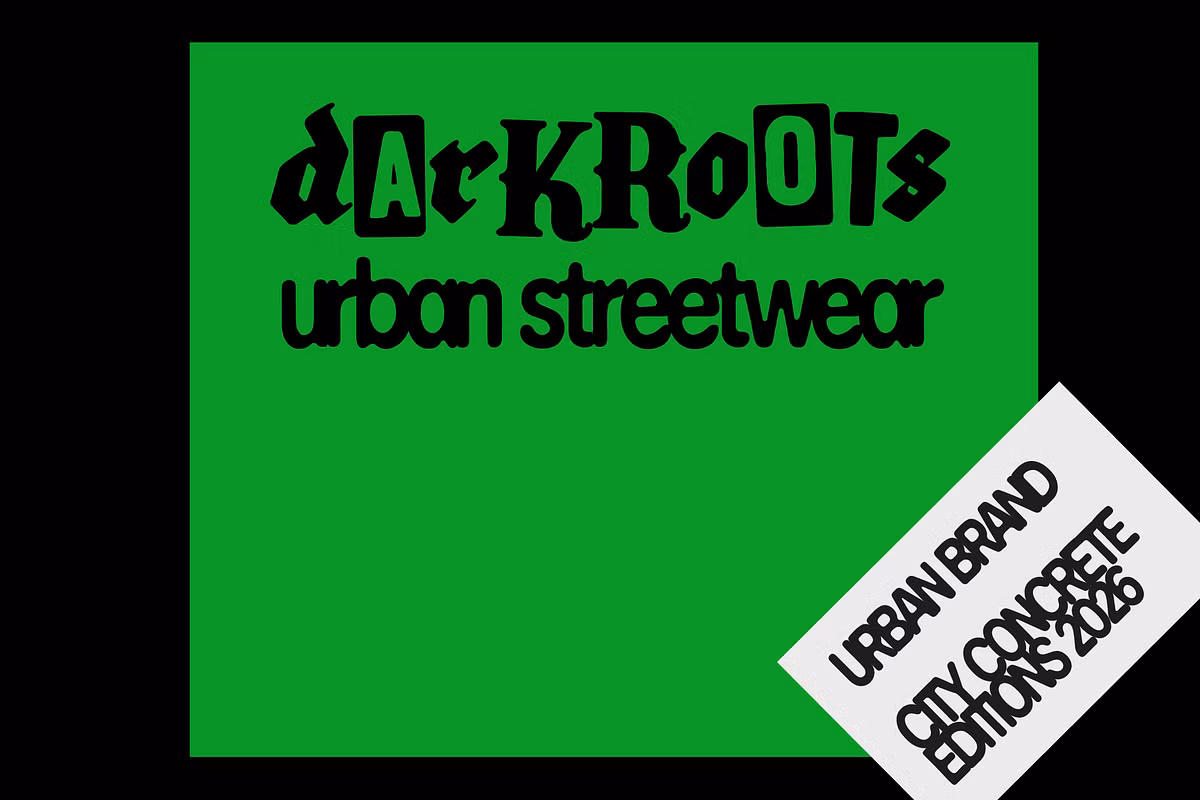
Authentic Streetwear – Font Bundle: Premium Typeface Collection for Urban Branding
Introduction to the Authentic Streetwear Font Bundle
The Streetwear Font Bundle is a top-notch set of fonts that can really boost your branding in the streetwear scene. It’s all about bold, eye-catching fonts that capture the edgy vibe of urban fashion. If you’re a designer working on visual branding, especially for skate brands, underground clothing labels, music merch, or urban ads, this bundle is for you. With these fonts, you can create a solid brand identity and make a big impact visually, without having to sift through tons of different font styles.
Design Style: A Fusion of Urban Aesthetics
The design style of the Authentic Streetwear Font Bundle is characterized by a unique blend of typography that captures the essence of street culture. Each typeface in the collection has been carefully selected from Edignwn Type’s display library, offering a diverse range of styles that include:
- Blackletter Aggression: Fonts like Blightmark Blackletter and Hintdake Blackletter bring a bold, historical vibe that adds an aggressive edge to your designs.
- Ransom-Style Chaos: The Desfort Ransom typeface introduces an element of playful disorder, perfect for eye-catching posters or album covers.
- Bold Serifs and Contemporary Sans: Both Bitblast Serif and Bitblast Sans provide a modern touch, ensuring that your streetwear brand feels fresh and relevant.
This clever mix helps create eye-catching visuals that scream city streets, making your brand stand out and leave a lasting impression.
Character Sets and Versatility
What really makes the Authentic Streetwear Font Bundle special is the huge range of characters in each font. Each typeface includes a lot of extra features, such as:
- Uppercase and Lowercase Letters: Many of the typefaces include both uppercase and lowercase options, giving you the flexibility to create unique typographic compositions.
- Alternates and Ligatures: Selected fonts offer alternate characters and ligatures, allowing you to craft custom looks that enhance readability and aesthetic appeal.
- Multilingual Support: The bundle is designed with global appeal in mind, providing multilingual support to ensure your designs can reach a wider audience.
- PUA Encoding: This feature allows for easy access to alternates and ligatures, making it simple for designers to incorporate unique typography into their projects.
This versatility makes the Authentic Streetwear Font Bundle an essential toolkit for any designer looking to create impactful urban branding.
Use Cases: Elevating Your Projects
The Authentic Streetwear Font Bundle is great for lots of different projects, and each font has its own unique style. Here are some ways you can use it:
- Apparel Graphics: Use bold display fonts for t-shirt designs, hoodies, and other apparel to create memorable branding that stands out in a crowded market.
- Lookbooks: Design captivating lookbooks that highlight your latest collections with typographic elements that reflect the essence of street culture.
- Posters and Flyers: Create promotional materials that demand attention with aggressive typography that captures the spirit of your brand.
- Album Covers: Infuse music merchandise with a raw, urban aesthetic that resonates with the audience, making your album cover as memorable as the music itself.
Make your product packaging stand out with bold typography that shares your brand’s story. This will help your brand fit in with the streetwear vibe. Use letters and words that are eye-catching and meaningful to make your packaging truly special.